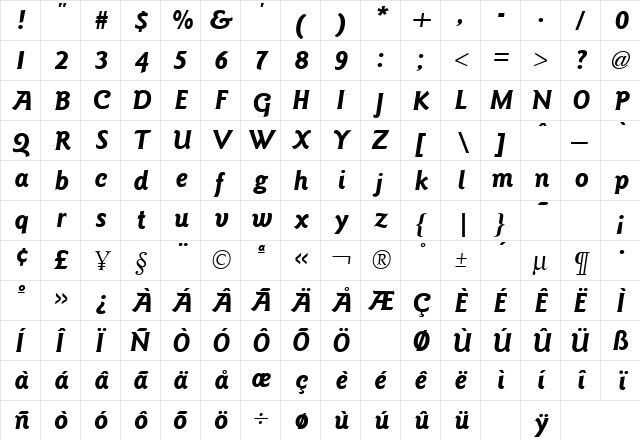
Goudy Bold Italic
Design Context for Goudy Typeface
Goudy takes a measured approach to typography — its balanced proportions and neutral character make it a reliable workhorse for both digital and print work. Its italic angle brings a sense of urgency and motion to the letterforms. The heavy weight commands attention and anchors typographic hierarchies.